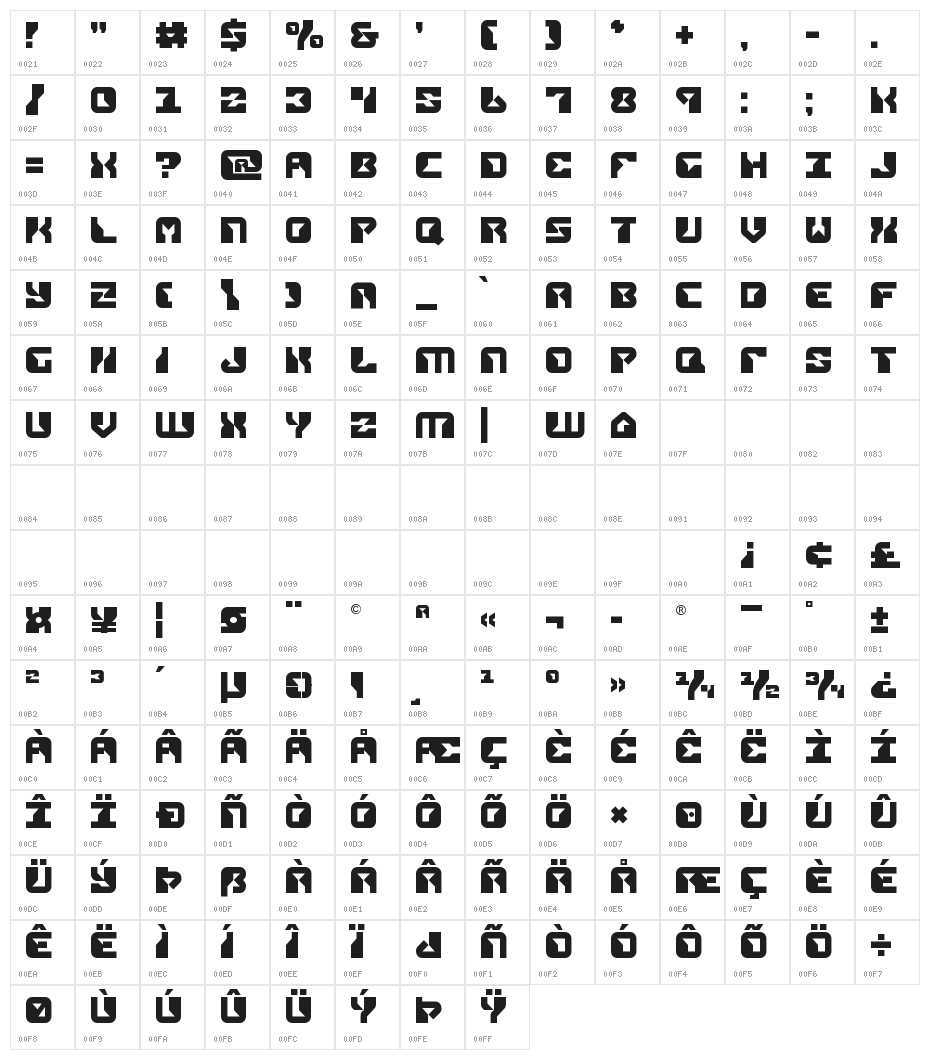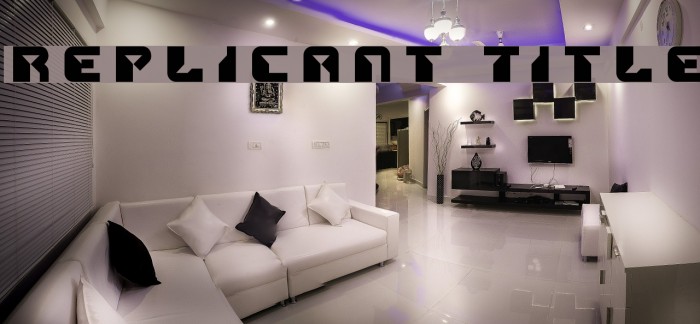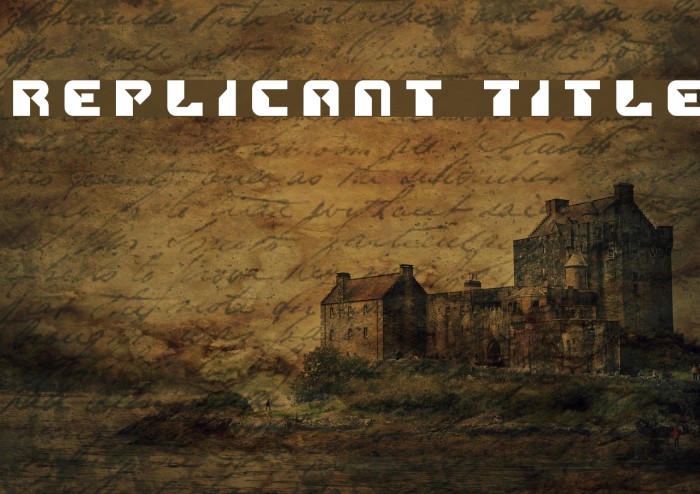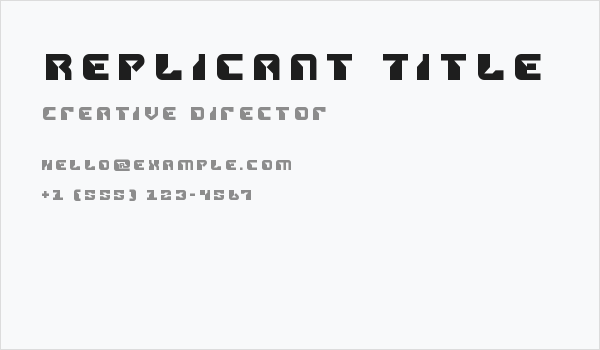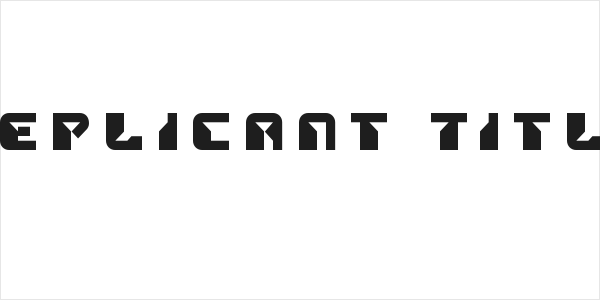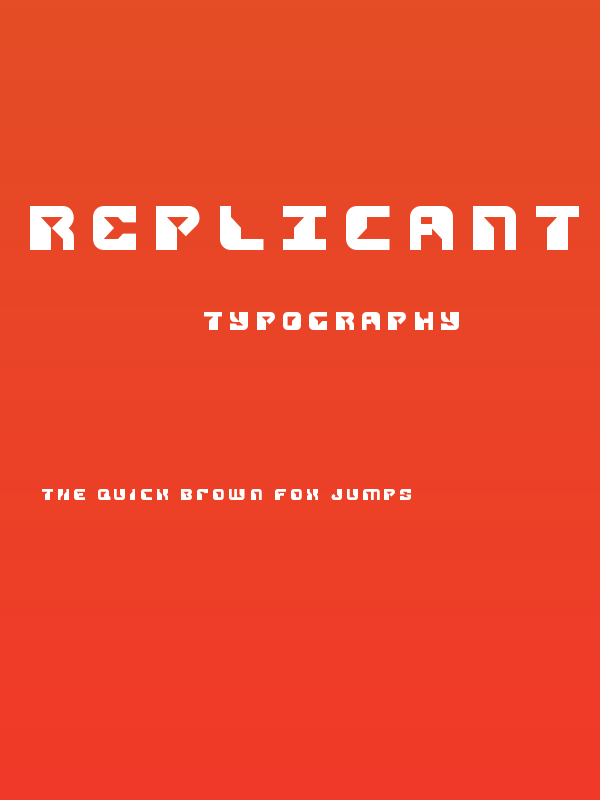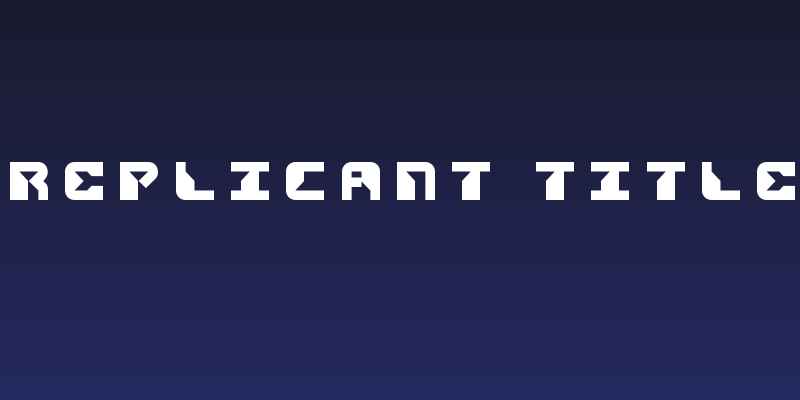
Replicant Title Font
Replicant Title Description
This font features a bold, futuristic design with geometric shapes and sharp angles. The characters are constructed with a strong emphasis on straight lines and blocky forms, creating a sense of modernity and technological advancement. The uppercase and lowercase letters maintain a consistent style, with minimal curves and a focus on angular cuts. Numbers and special characters follow the same design principles, ensuring uniformity across all glyphs. The font's distinct appearance makes it suitable for projects that require a contemporary and edgy look.
| Proposed Projects | Ideal for sci-fi themed designs, tech branding, video game titles, and futuristic posters. |